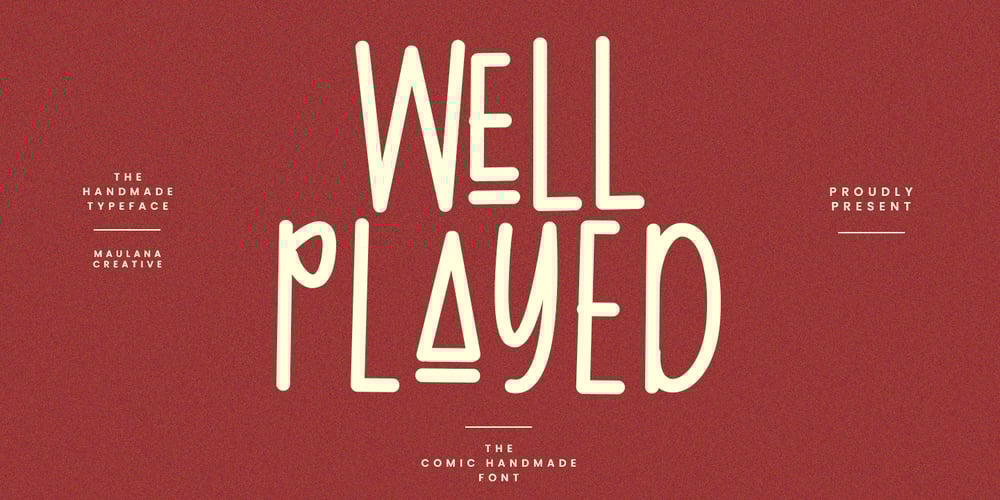
MC Well Played Font Family was designed by Gilang Maulana and published by Maulana Creative. MC Well Played contains 1 styles and family package options. Well Played font. Heavy stroke, fun character with a alternates. To give you an extra creative work, Well Played font support multilingual language. This font is good for logo design, Social media, Movie Titles, Books Titles, a short text even a long text letter and good for your secondary text font with script or serif. Make a stunning work with Well Played font.–Uppercase